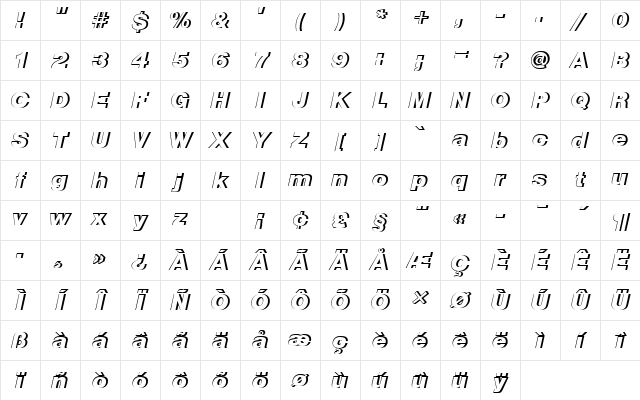
NimbusSanDBlaItaRe1 Regular
Design Context for NimbusSanDBlaItaRe1
NimbusSanDBlaItaRe1 is a composed and adaptable typeface that performs quietly and consistently across a wide range of design contexts.